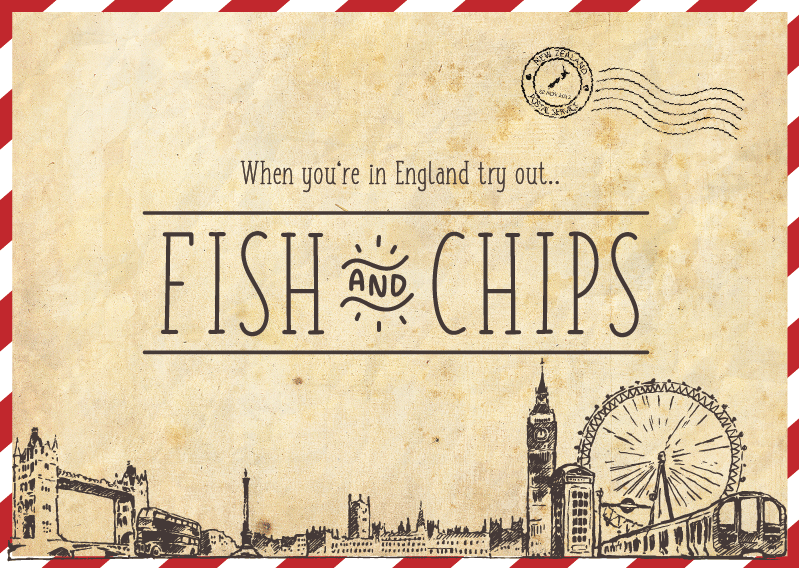
Meet Fish&Chips - a sans serif handwritten font This font is free for Personal use ONLY. This is the demo version. Get the full version and other styles of this font including a license for commercial use on www.phitradesign-fonts.com/fishandchips If you're buying it for a company with more than 10 members you'll need to contact me first, either on my website www.phitradesign-fonts.com or directly via email to license@phitradesign-fonts.com Thanks! |